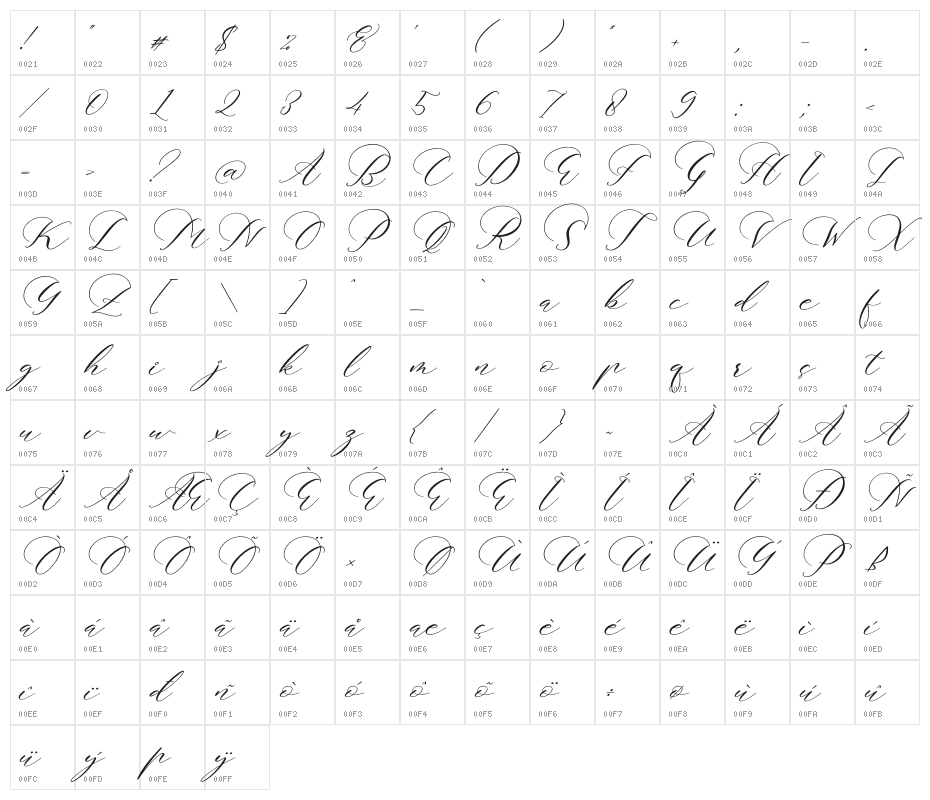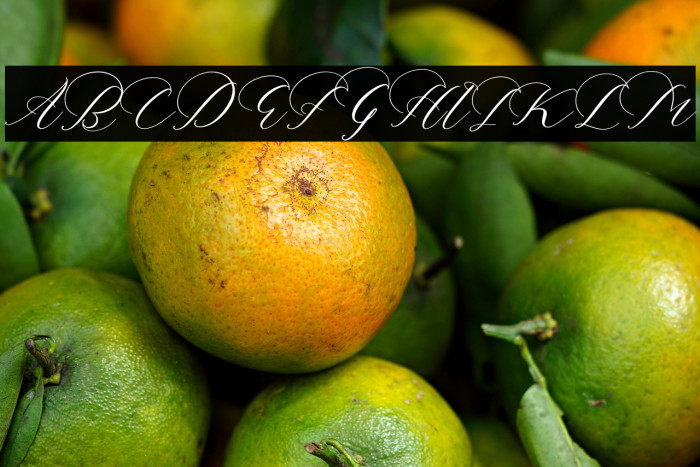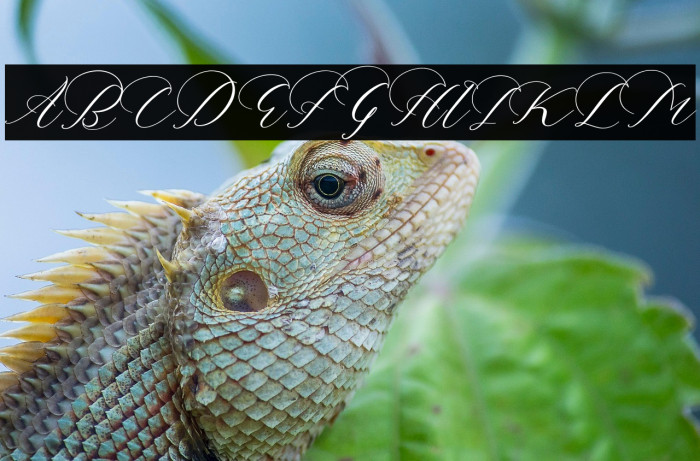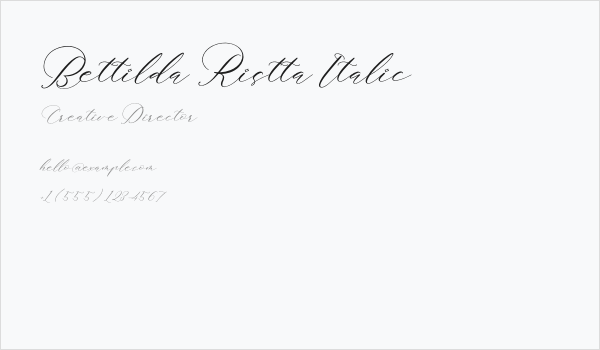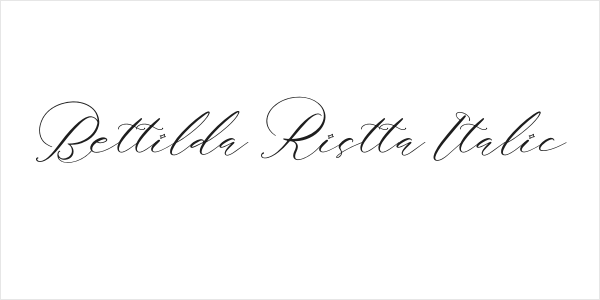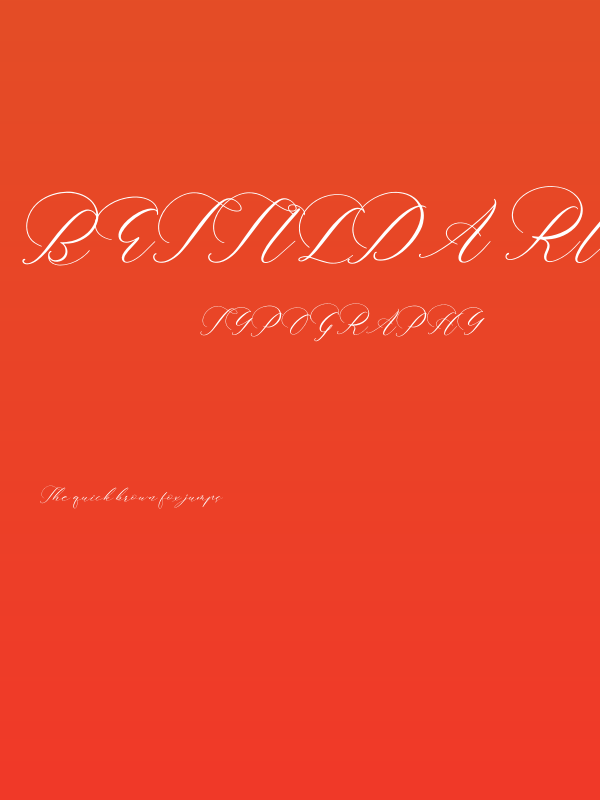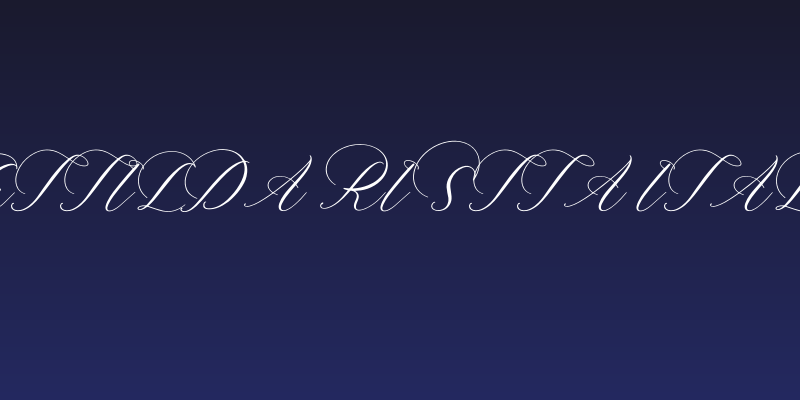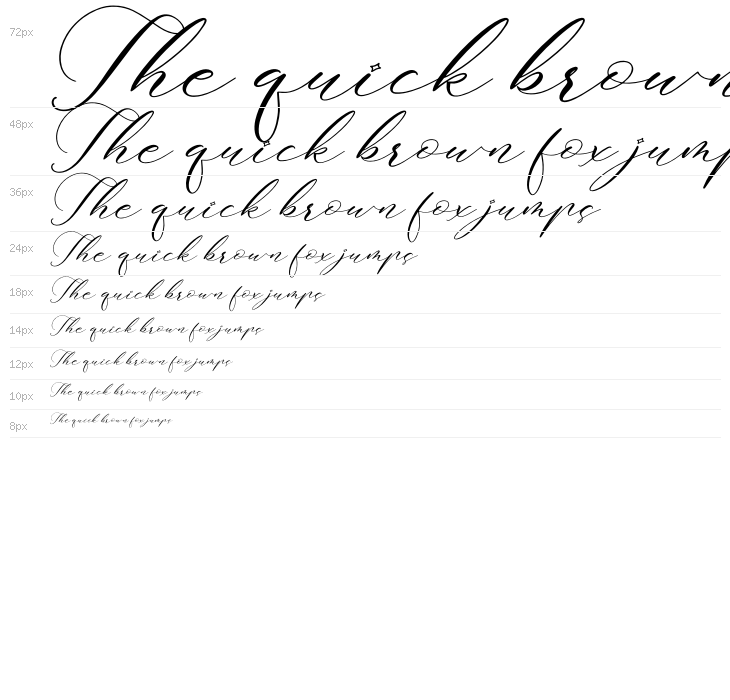
Bettilda Ristta Italic Font
Bettilda Ristta Italic Description
This elegant script font features a flowing, cursive style with delicate, sweeping strokes that give it a sophisticated and graceful appearance. The characters are interconnected, creating a seamless and fluid look. The uppercase letters are ornate, with intricate loops and flourishes, while the lowercase letters maintain a consistent, flowing rhythm. The numerals and special characters complement the overall aesthetic, adding to its versatility. This font exudes a sense of elegance and refinement, making it ideal for formal and decorative applications.
| Proposed Projects | Ideal for wedding invitations, elegant branding, greeting cards, and luxury product packaging. |